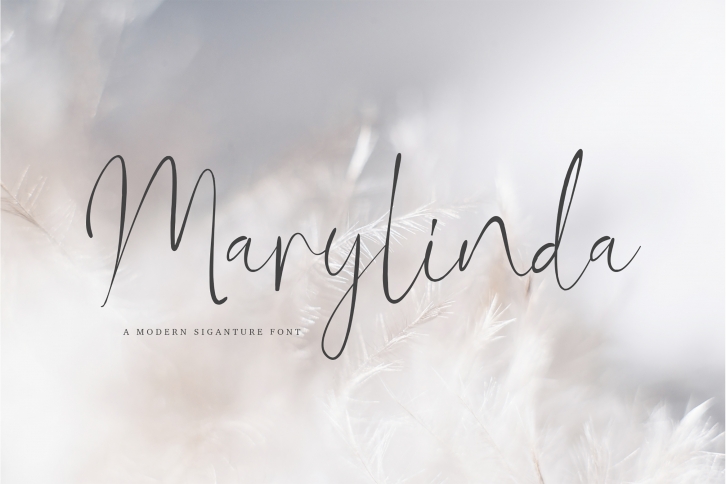
Marylinda Beauty and Modern Signature Font Download
Marylinda Beauty and Modern Signature is a trendy and unique font with an authentic style. It was designed by Peterdraw and it's a great choice for creative people who need such a font. It was released on March 2, 2020 and the file size is 12.88 MB. Marylinda Beauty and Modern Signature will add an organic vibe to any design idea!